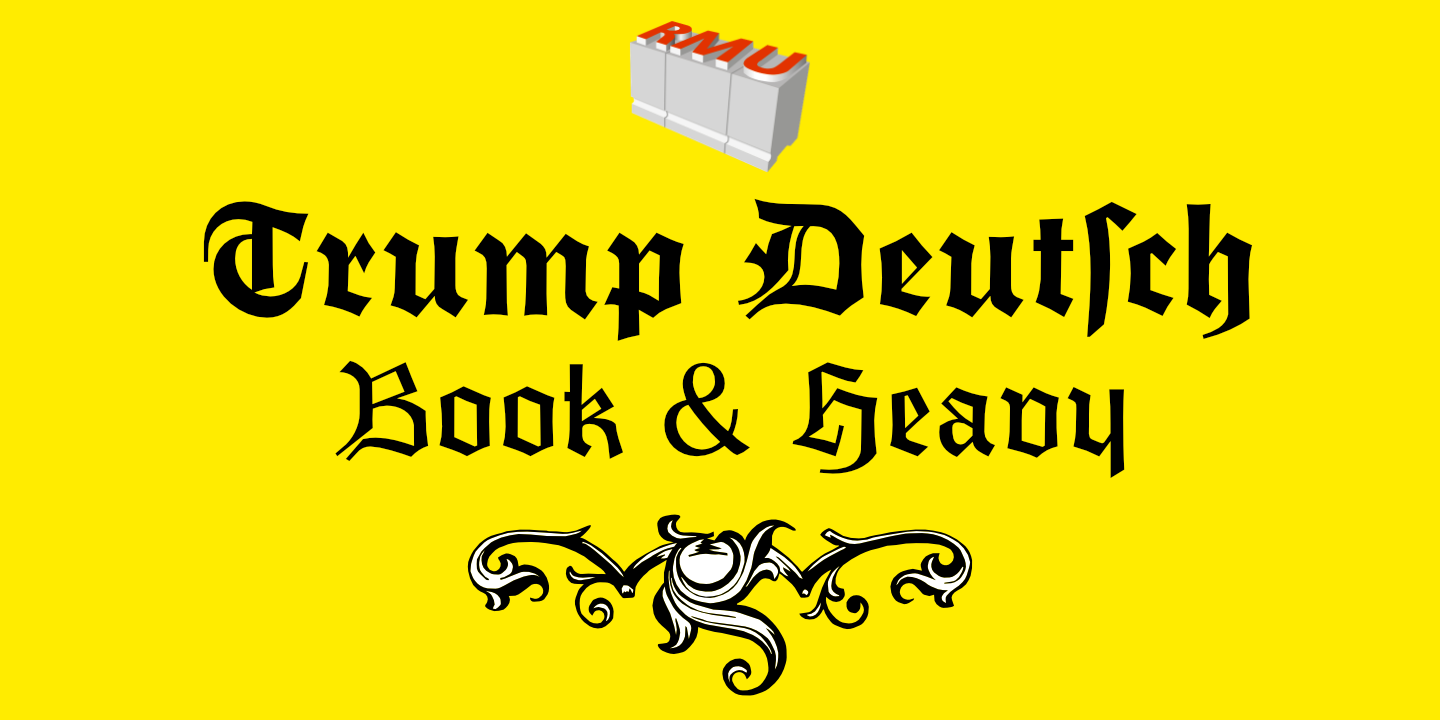
Trump Deutsch Font Free Download is a striking blackletter typeface that embodies traditional Germanic design with bold, ornate letterforms. Perfect for posters, logos, certificates, packaging, event flyers, and historical-themed projects, this font brings a strong, classical aesthetic rooted in Old World typography. Trump Deutsch Font adds a sense of heritage, formality, and artistic flair to any design requiring an authentic gothic touch.
With Trump Deutsch Font Free Download, you’ll receive a full set of uppercase letters, numbers, and essential punctuation, allowing for creative flexibility across a variety of applications. Whether you’re designing branding for craft breweries, vintage labels, or themed merchandise, this font delivers boldness and character while maintaining readability in decorative contexts.
Enhance your projects with the timeless, gothic beauty of Trump Deutsch Font Free Download. Its dramatic, intricate style makes a powerful statement, ensuring your designs stand out with tradition and bold visual impact.